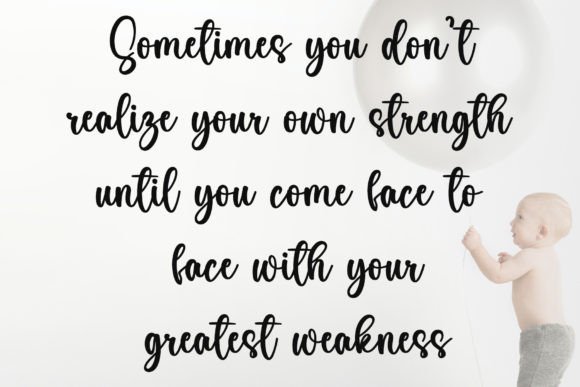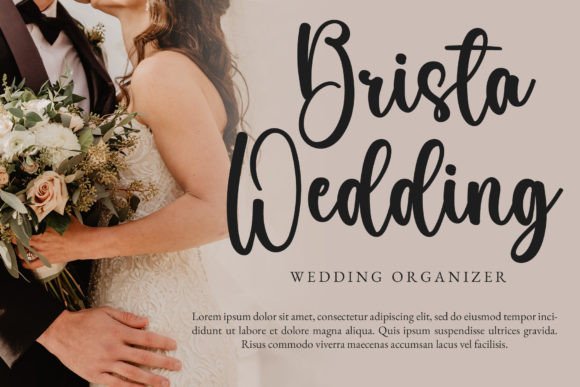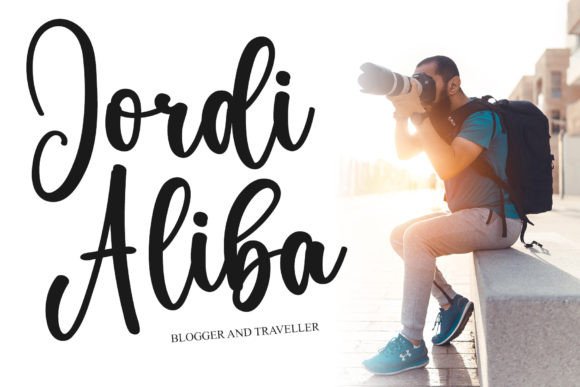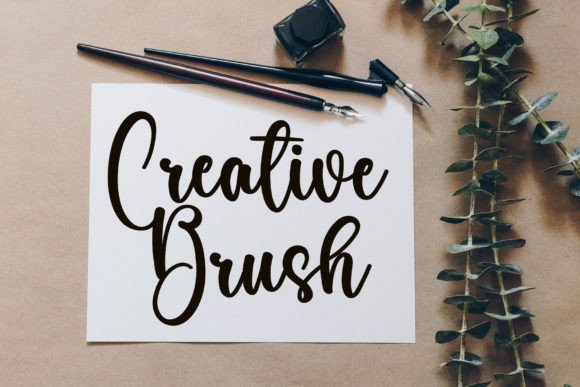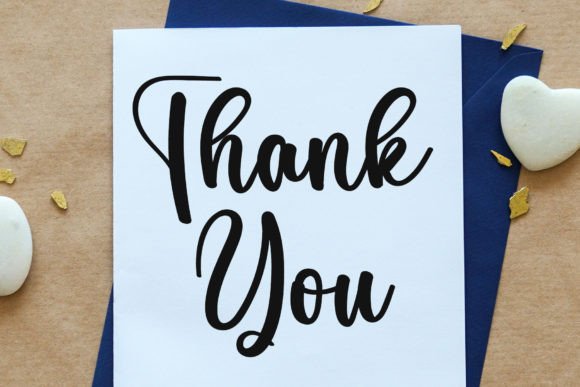
Introducing Clearty Font: The Elegant and Delicate Handwritten Typeface for Your Design Needs
Are you a designer or crafter looking for a beautiful and versatile font to elevate your creative projects? Look no further than Clearty Font, an elegant and delicate handwritten typeface that’s perfect for a wide range of design applications. In this article, we’ll explore the features and benefits of Clearty Font, and show you how it can help take your designs to the next level.
What is Clearty Font?
Clearty Font is a stunning handwritten typeface that’s designed to add a touch of elegance and sophistication to your designs. With its delicate lines and refined aesthetic, Clearty Font is perfect for creating beautiful and eye-catching designs that will leave a lasting impression. Whether you’re working on a logo, branding project, social media post, advertisement, business card, wedding invitation, or product design, Clearty Font is the perfect choice.
Key Features of Clearty Font
So what makes Clearty Font so special? Here are just a few of its key features:
- Elegant and delicate design: Clearty Font features a beautiful, handwritten design that’s both elegant and refined.
- PUA encoded: Clearty Font is PUA (Private Use Area) encoded, which means you can access all of the glyphs and alternates with ease.
- Versatile: Clearty Font is perfect for a wide range of design applications, from logos and branding to social media posts and product design.
Benefits of Using Clearty Font
So why should you choose Clearty Font for your design projects? Here are just a few benefits of using this beautiful typeface:
- Add a touch of elegance: Clearty Font adds a touch of elegance and sophistication to your designs, making them stand out from the crowd.
- Increase brand recognition: With its unique and refined design, Clearty Font can help you create a strong brand identity that resonates with your target audience.
- Save time: Clearty Font is easy to use and comes with a range of features that make designing faster and more efficient.
- Perfect for a range of projects: Whether you’re working on a logo, social media post, or product design, Clearty Font is the perfect choice.
Design Ideas with Clearty Font
Clearty Font is perfect for a wide range of design projects. Here are a few ideas to get you started:
- Logos and branding: Create a beautiful and elegant logo that reflects your brand’s values and personality.
- Social media posts: Add a touch of sophistication to your social media posts and make them stand out from the crowd.
- Advertisements: Create eye-catching advertisements that grab attention and drive results.
- Business cards: Design beautiful and elegant business cards that make a lasting impression.
- Wedding invitations: Create stunning wedding invitations that set the tone for a beautiful and memorable day.
- Product design: Add a touch of elegance to your product design and make it stand out from the competition.
In conclusion, Clearty Font is a beautiful and versatile handwritten typeface that’s perfect for a wide range of design applications. With its elegant and delicate design, PUA encoding, and ease of use, Clearty Font is the perfect choice for designers and crafters looking to elevate their creative projects. Whether you’re working on a logo, social media post, or product design, Clearty Font is sure to impress. So why wait? Download Clearty Font today and start creating stunning designs that leave a lasting impression!